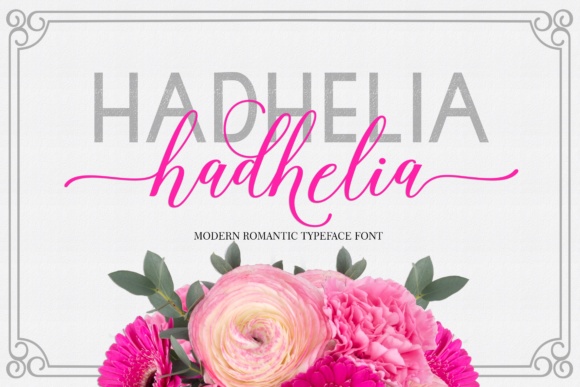
In a world teeming with digital monotony, Hadhelia Script Font emerges as a beacon of originality, a breath of fresh air that will infuse your creative endeavors with elegance and charm. This modern calligraphy design, meticulously crafted by Picatype Studio, is a symphony of flowing strokes and graceful curves, a visual masterpiece that will elevate your projects to new heights of sophistication.
Hadhelia is not just a font; it's an experience, a journey into the realm of artistic expression. Its beautiful, feminine swashes dance across the page like delicate petals carried by a gentle breeze, adding a touch of whimsy and romance to every word you write. Whether you're designing a captivating logo, creating eye-catching product packaging, or crafting heartfelt wedding invitations, Hadhelia will transform your vision into a tangible work of art.
With its versatility, Hadhelia effortlessly adapts to a myriad of creative pursuits. It seamlessly blends with various design styles, from classic to contemporary, adding a touch of elegance to minimalist layouts and a hint of playfulness to bold, vibrant designs. Its range of applications is as boundless as your imagination, making it the perfect choice for branding, social media graphics, and even personal stationery.
Hadhelia Script Font is more than just a collection of characters; it's a gateway to a world of creative possibilities, an invitation to explore the depths of your artistic potential. Its enchanting allure will captivate your audience, leaving a lasting impression that lingers in their minds long after they've encountered your designs.
As you embark on your creative journey with Hadhelia, you'll discover a font that's not just a tool, but a muse, a catalyst for inspiration. It will ignite your passion, fuel your creativity, and empower you to create designs that resonate with your audience on a deeper level.
So, embrace the magic of Hadhelia Script Font, let its enchanting curves guide your hand, and watch as your creative vision unfolds into a breathtaking masterpiece. With Hadhelia as your companion, you'll leave an indelible mark on the world of design, one captivating creation at a time.